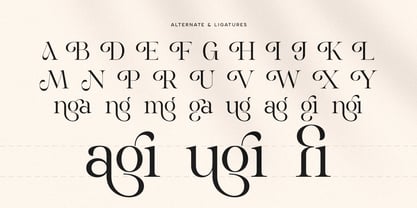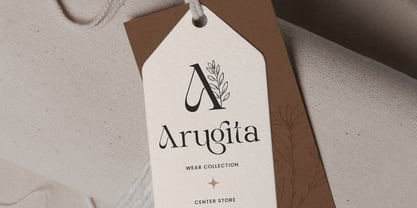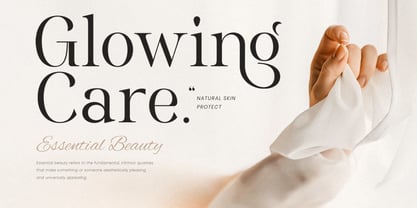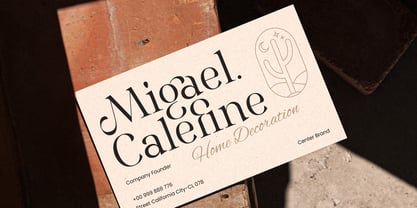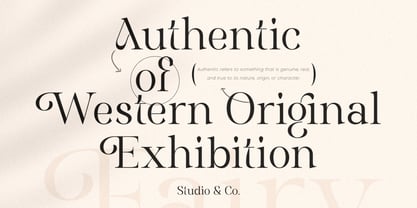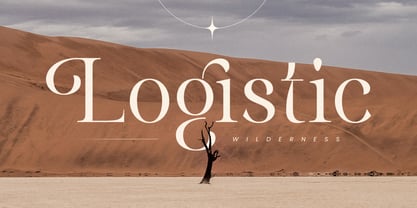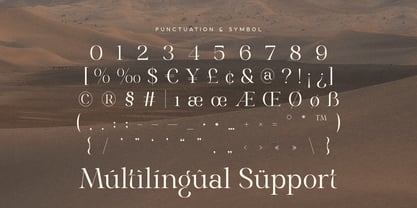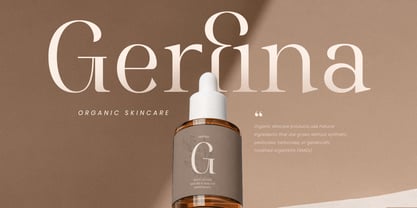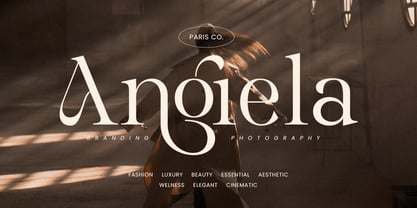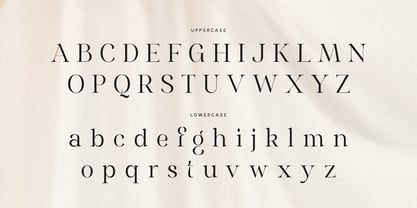
Nirage
La familia tipográfica Nirage fue diseñada por Zamroni Hamzah y publicada por Sensatype Studio. Nirage contiene 2 estilos y opciones de paquete familiar. Más información sobre esta familia
Nirage - Modern Cinematic Font
Nirage is a modern cinematic font crafted to bring a touch of elegance and style to your branding projects. Its sleek lines and bold characters make it perfect for creating eye-catching logos that leave a lasting impression.
Designed with versatility in mind, Nirage shines in both digital and print mediums. Whether you're working on a film project, a sophisticated brand, or a high-end product line, this font provides a polished and professional appearance that enhances your visual identity.
With its unique character set and modern aesthetic, Nirage ensures that your designs stand out in any context, offering the perfect blend of creativity and clarity.
Nirage Modern Cinematic Font Features:
• Unique Characters Ready
• Punctuation, Number, and Symbol
• Uppercase and Lowercase
• Multilingual Support
• Opentype Features